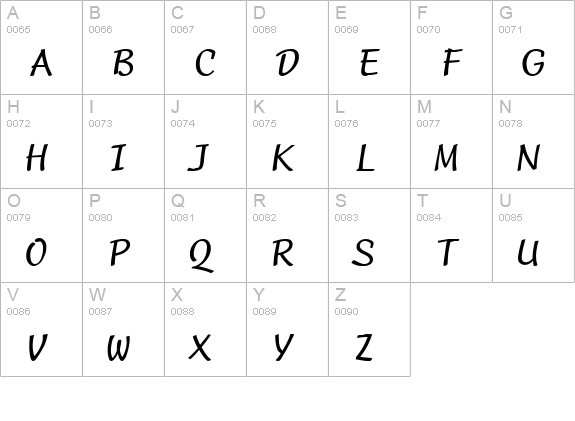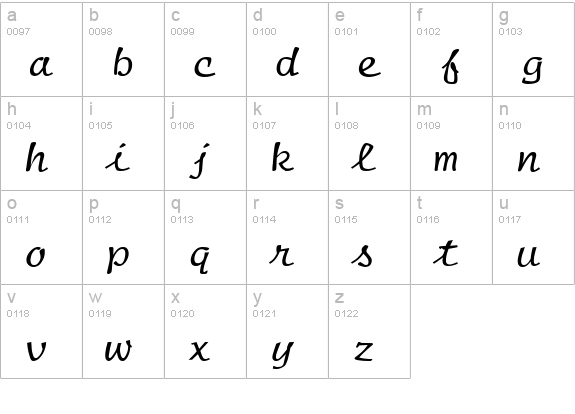
Manuscript Wide Normal is the standard, neutral, extended-width variant in the Manuscript typeface family \xE2\x80\x94 well suited to general body text, paragraphs, and standard typographic work.
Manuscript Wide Normal font is a visually stunning typeface that combines elegance with readability. Its wide proportions and clean lines make it perfect for a wide range of design projects, from branding and advertising to editorial and web design. The letters have a balanced spacing, ensuring that each character stands out and contributes to the overall harmony of the text. This versatile font exudes a timeless charm, making it suitable for both modern and classic designs. Its subtle variations in stroke width give it a sophisticated and refined appearance, while the rounded terminals add a touch of warmth and approachability. Whether used for headlines, body text, or captions, Manuscript Wide Normal font effortlessly captures attention and engages readers. One of the most attractive aspects of Manuscript Wide Normal font is that it is freely available to download at FontsMarket.com. This means that designers and enthusiasts alike can enjoy the beauty and versatility of this font without any cost. It's a wonderful opportunity to enhance your creative projects with a high-quality typeface that adds a touch of professionalism and style. With its wide range of characters, including uppercase and lowercase letters, numbers, punctuation marks, and special symbols, Manuscript Wide Normal font offers endless possibilities for creative expression. Its smooth curves and consistent letterforms ensure excellent legibility, even at smaller sizes. This font is truly a valuable addition to any designer's toolkit. Whether you're working on a branding project, a magazine layout, a website design, or any other creative endeavor, Manuscript Wide Normal font is sure to elevate your work to new heights. Its timeless elegance, paired with its availability as a free download at FontsMarket.com, makes it a must-have font for designers looking to create impactful and visually appealing designs.